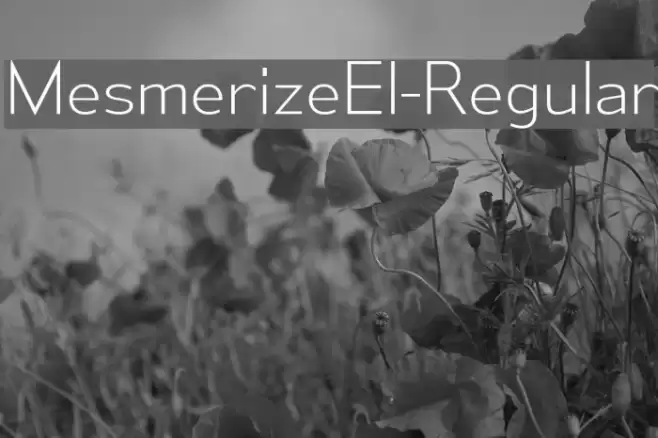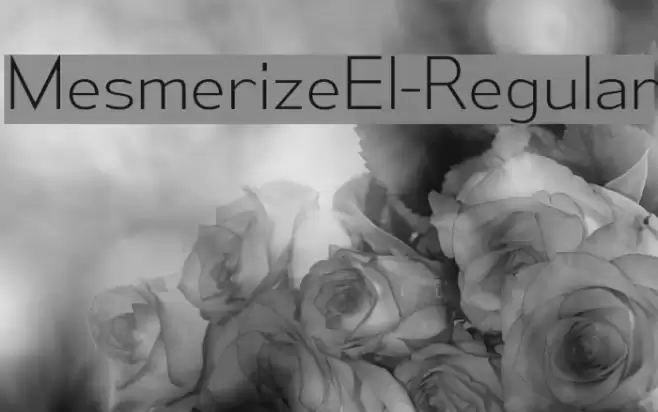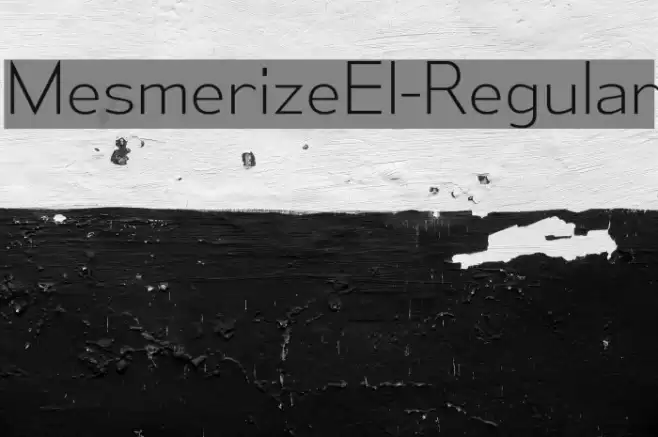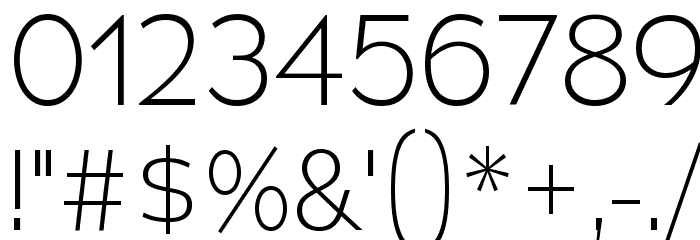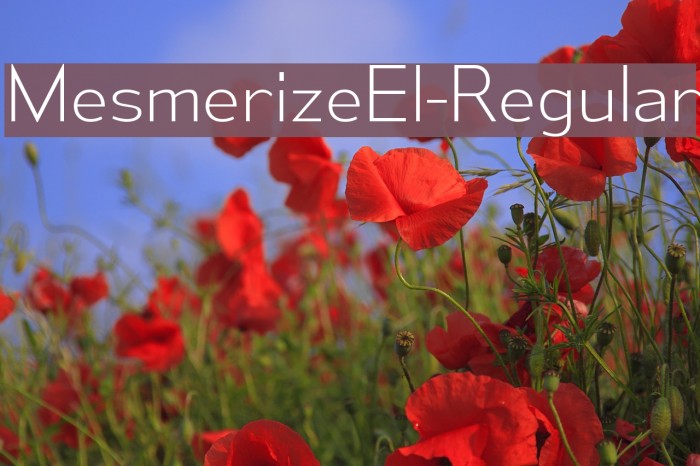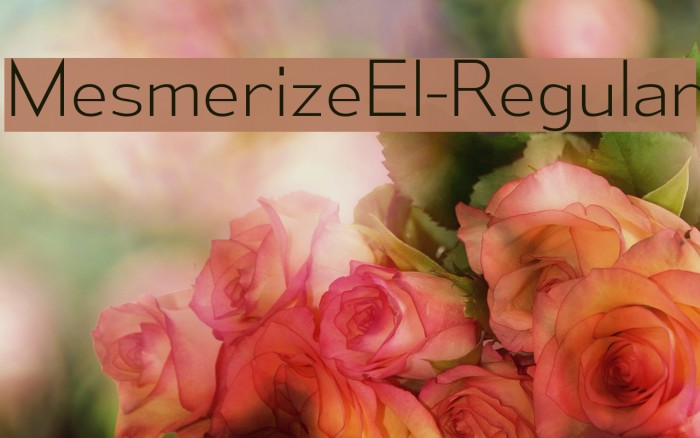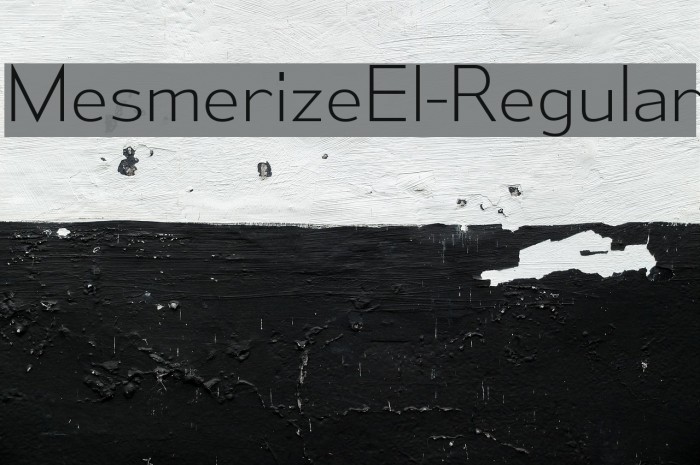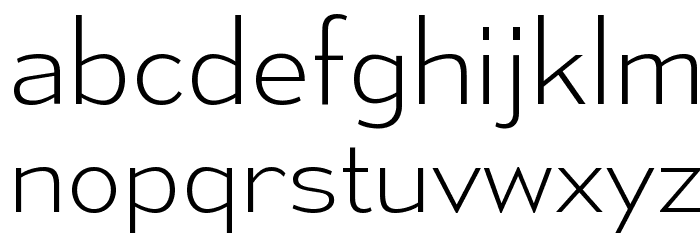
MesmerizeEl-Regular Font
MesmerizeEl-Regular Description
This font features a clean and modern sans-serif design with a geometric structure. The characters are well-balanced with a consistent stroke width, giving it a sleek and contemporary appearance. The uppercase letters are bold and commanding, while the lowercase letters maintain a harmonious flow. The numerals are clear and legible, making them suitable for various applications. Special characters are included, enhancing its versatility. The overall design is minimalistic, making it ideal for projects that require a professional and uncluttered look.
A modern, geometric sans-serif font with a clean and minimalistic design from Uncategorized fonts.
- Proposed Projects: Ideal for branding, web design, corporate materials, and editorial layouts.